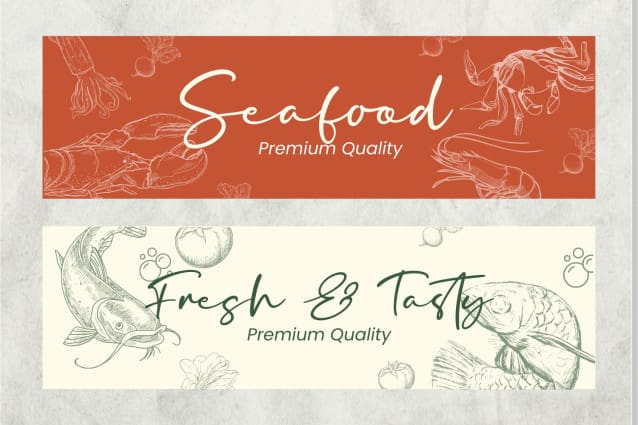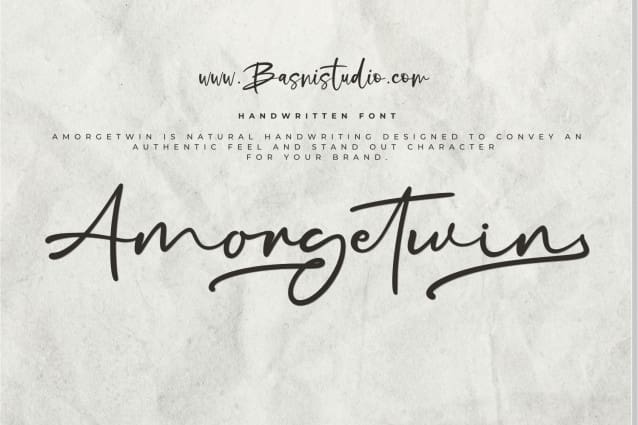
Amorgetwin Handwritten Font
Amorgetwin Handwritten Font is a beautifully crafted handwritten typeface that adds a natural, personal touch to everything from branding and social media to invitations and packaging.